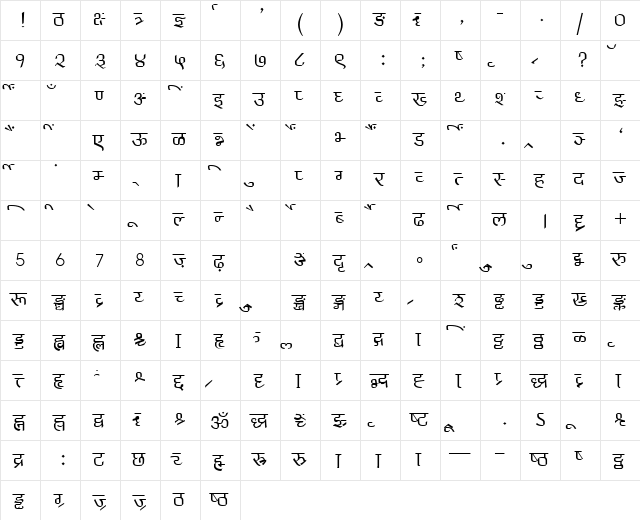
AkrutiDevVijayNormal Normal
Design Context for AkrutiDevVijayNormal Typeface
AkrutiDevVijayNormal is a composed and adaptable typeface that performs quietly and consistently across a wide range of design contexts.